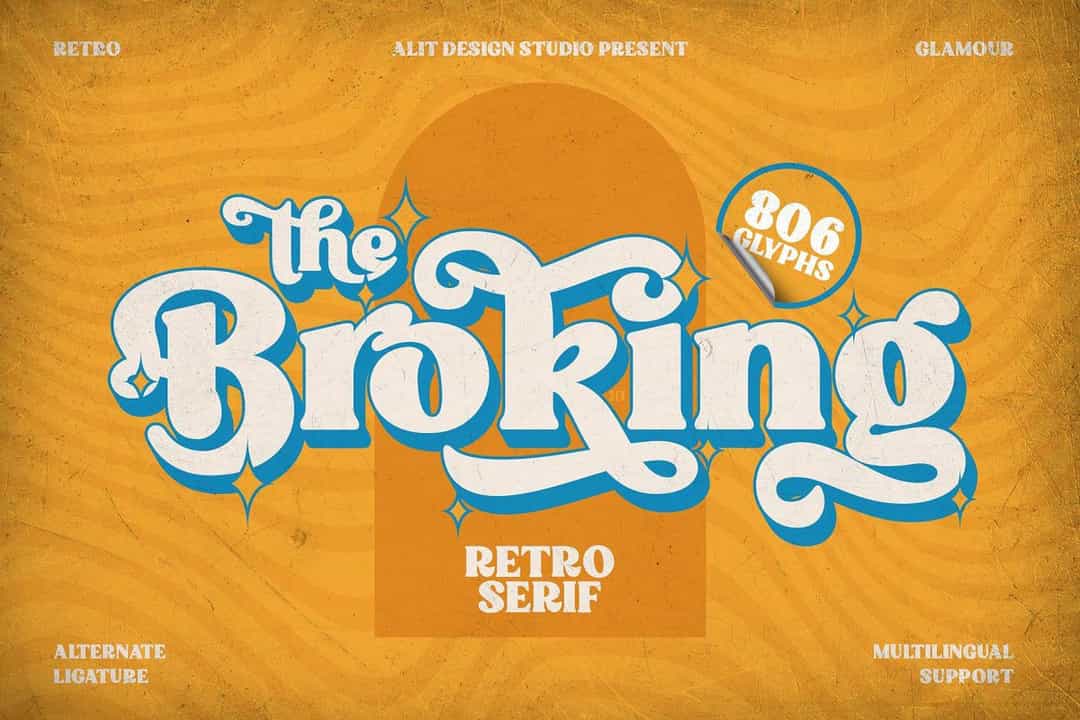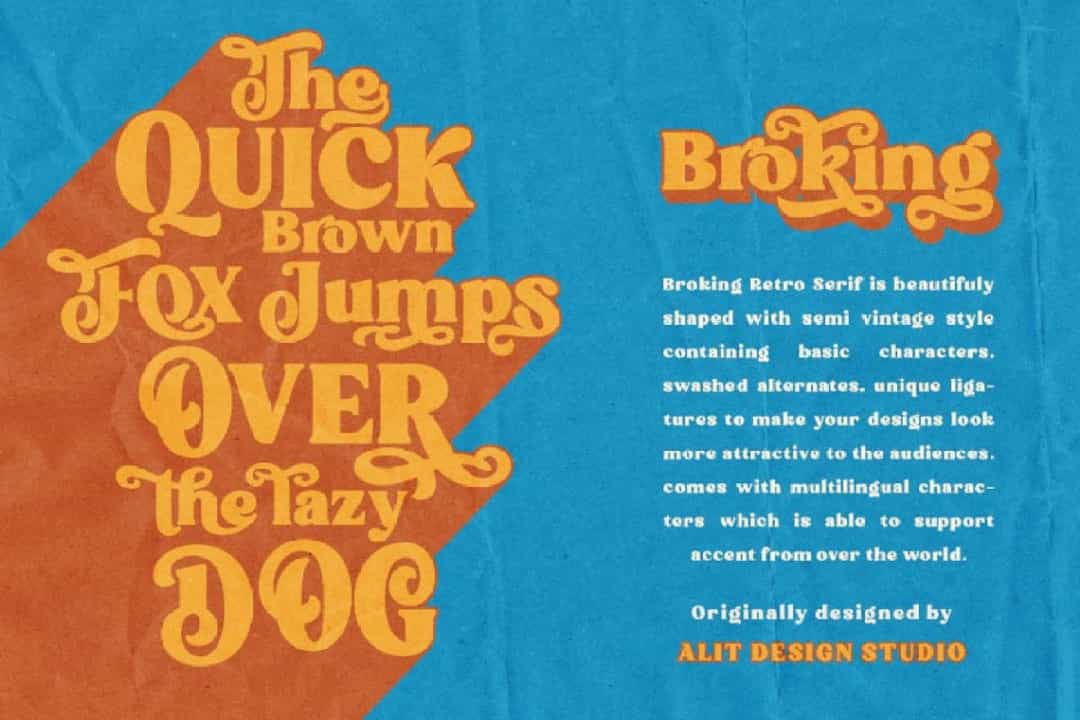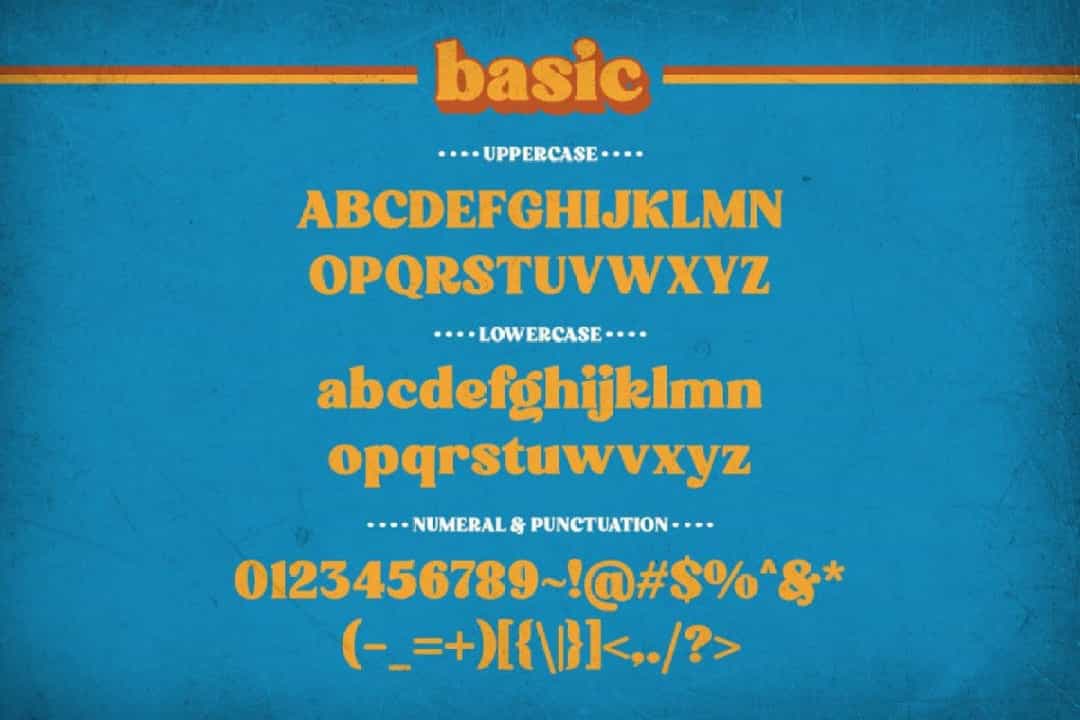
The Broking Typeface was heavily influenced by fashion designs of the 80s and 90s, featuring bold yet modern typeface styles like “The Broking Typeface”. With its variety of characters and swashes, The Broking Typeface made creating stunning retro-style designs easy.